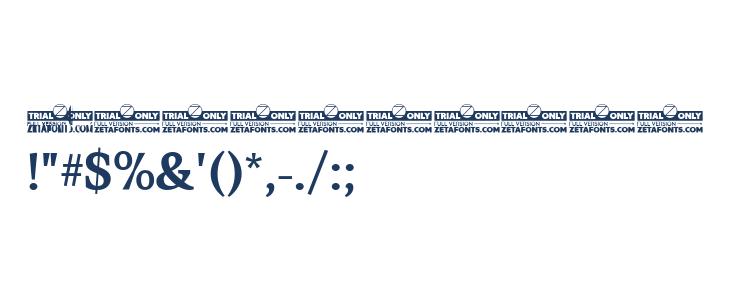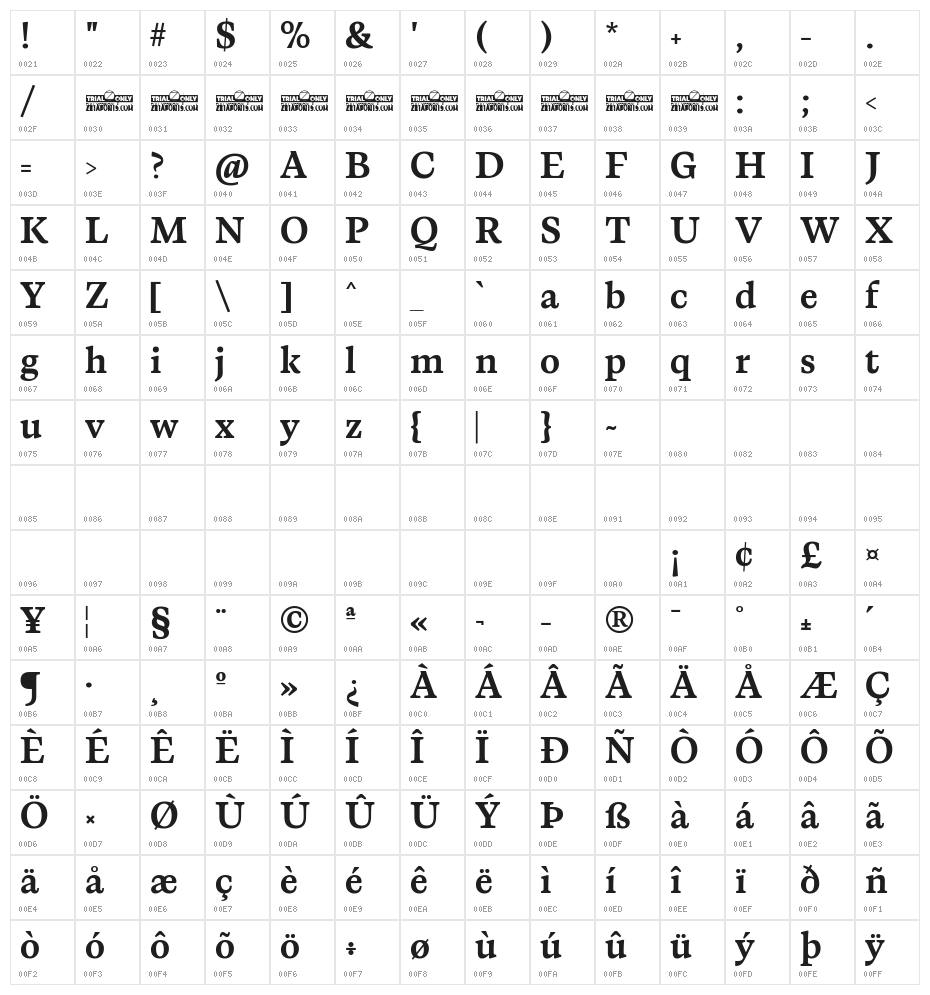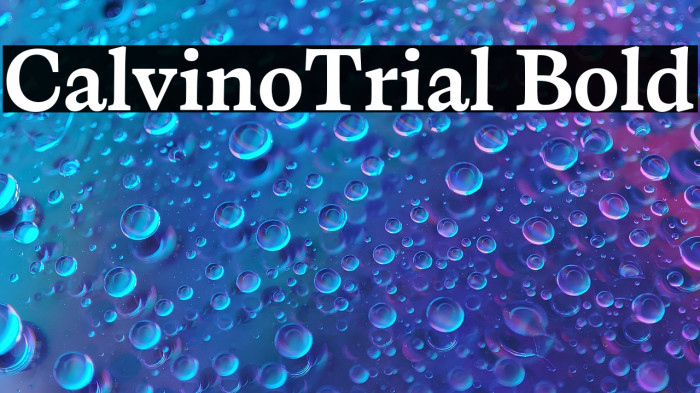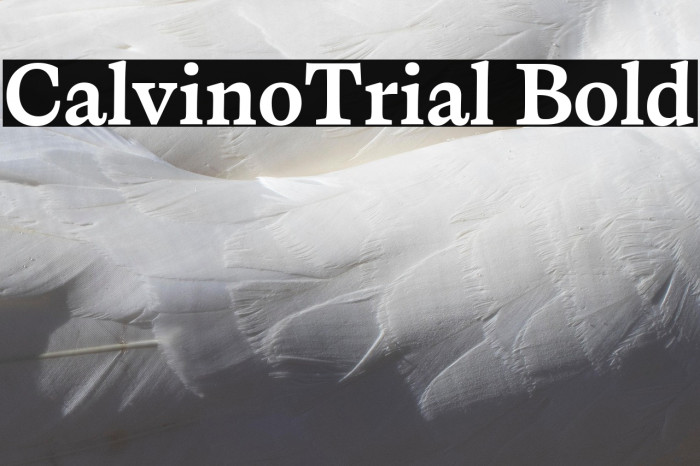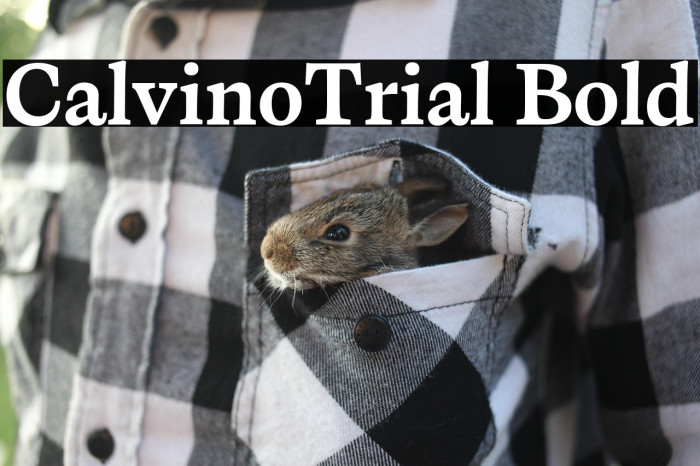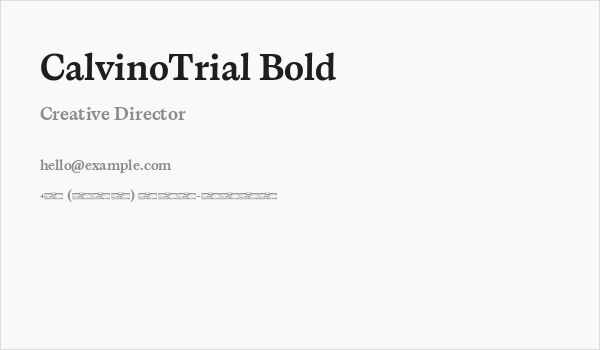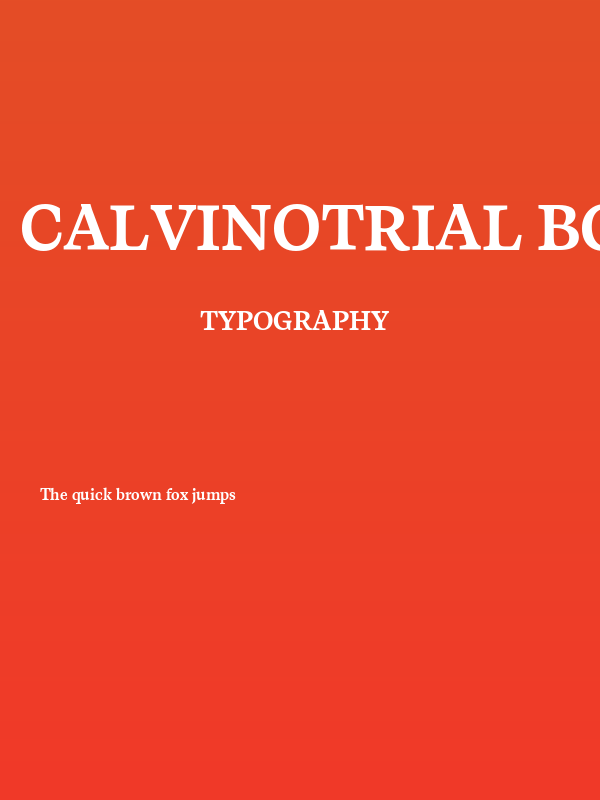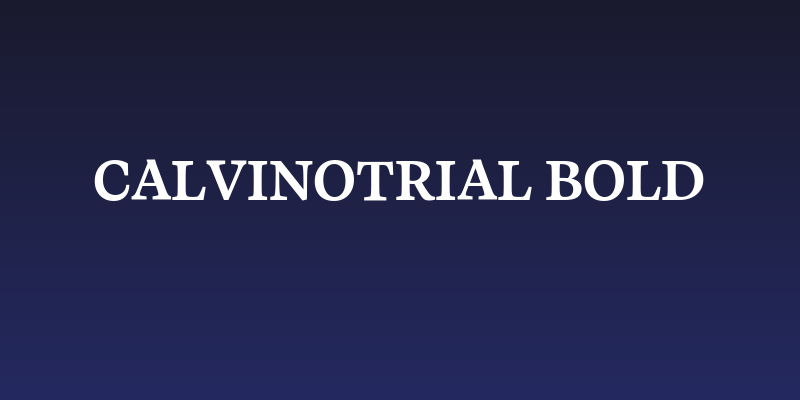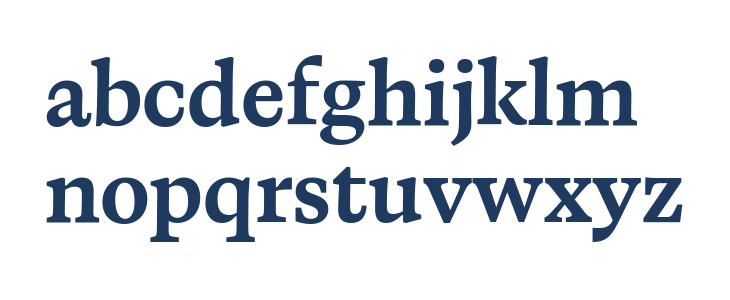
CalvinoTrial Bold Font
CalvinoTrial Bold Description
This font features a bold and assertive serif style, characterized by strong, thick strokes and a classic design. The uppercase letters exhibit a traditional serif structure with pronounced serifs that add a touch of elegance and authority. The lowercase letters maintain a consistent weight, providing a harmonious balance between readability and style. The numerals are clear and distinct, ensuring legibility in various contexts. Special characters are well-defined, making this font versatile for a range of applications. Its overall appearance is both timeless and modern, suitable for projects that require a sophisticated yet impactful look.
| Proposed Projects | Ideal for book covers, editorial design, branding, and formal invitations. |